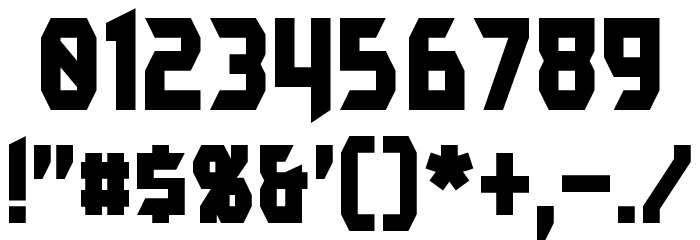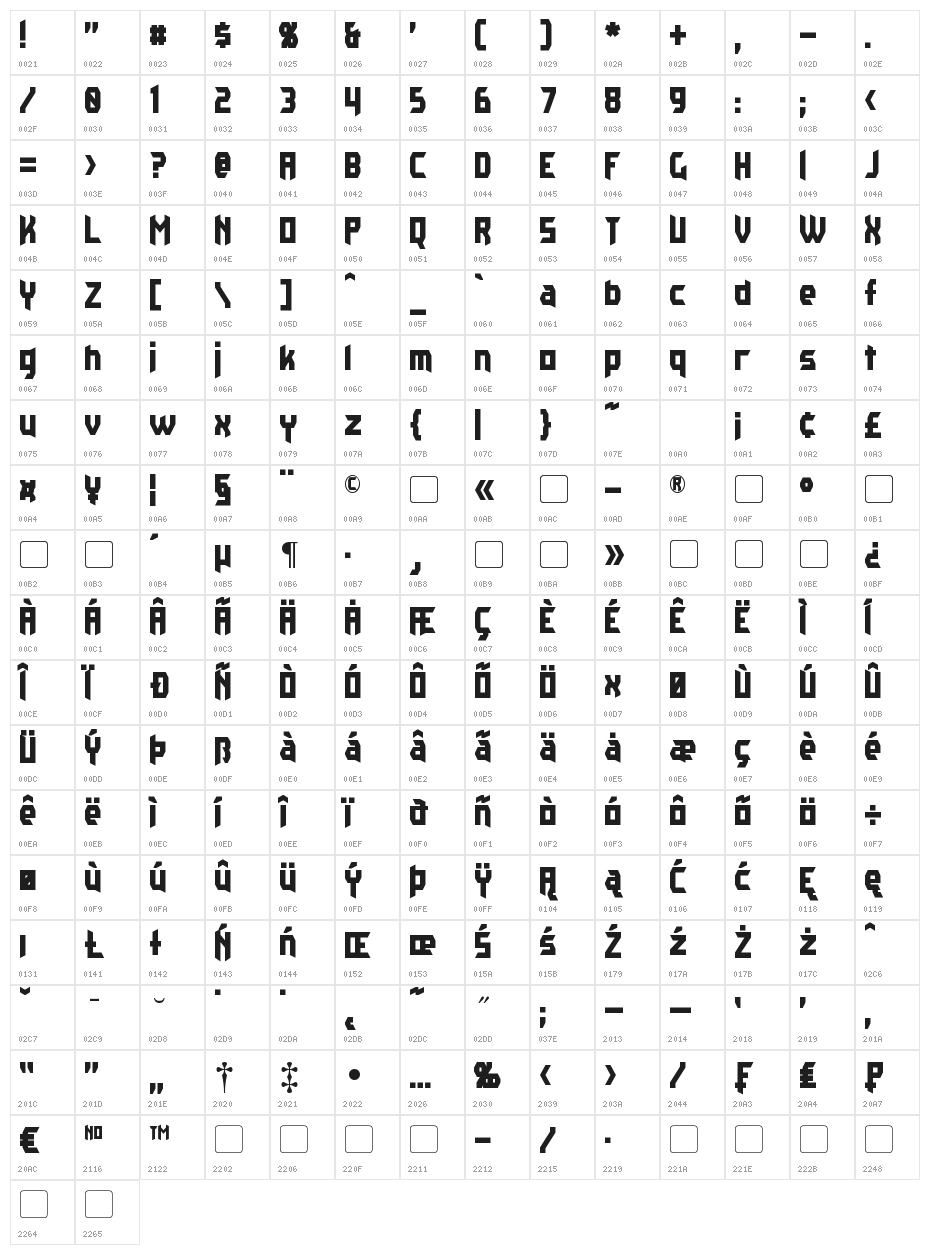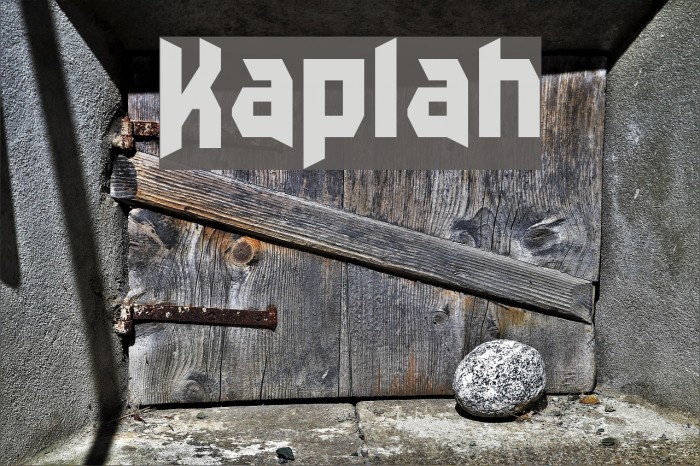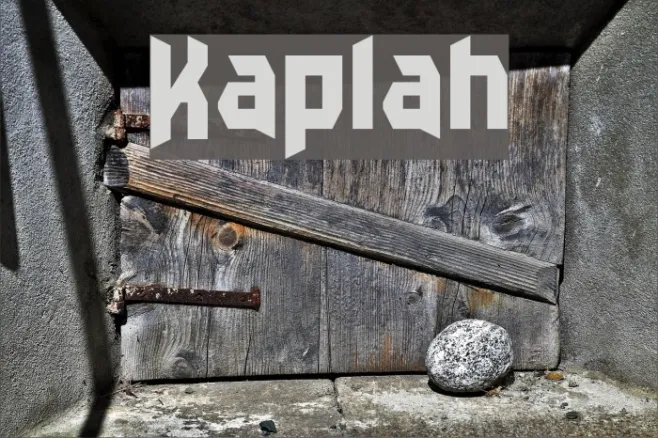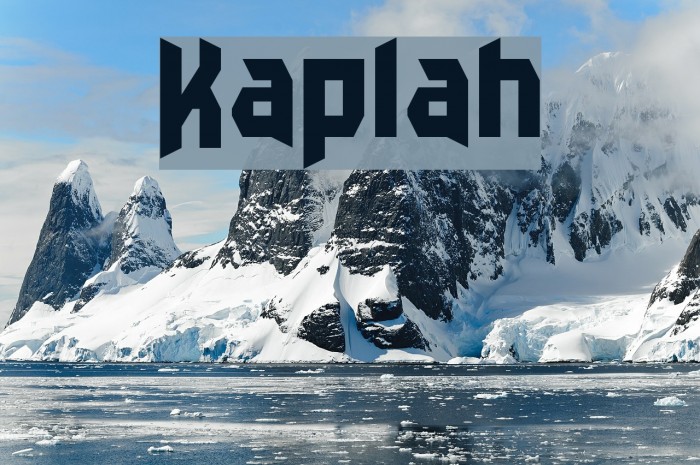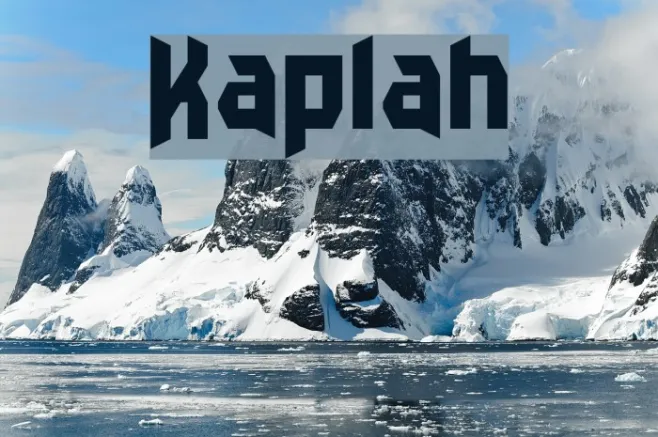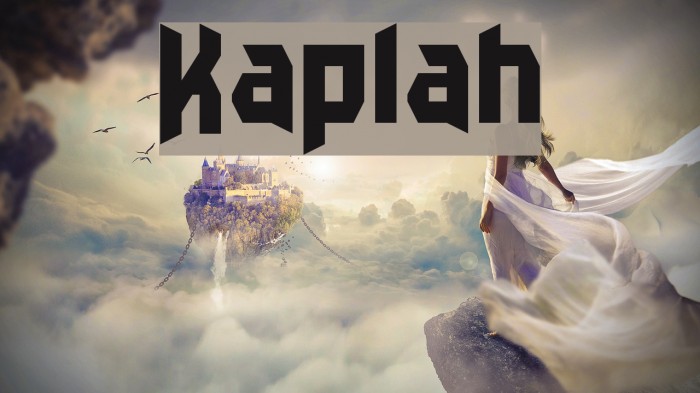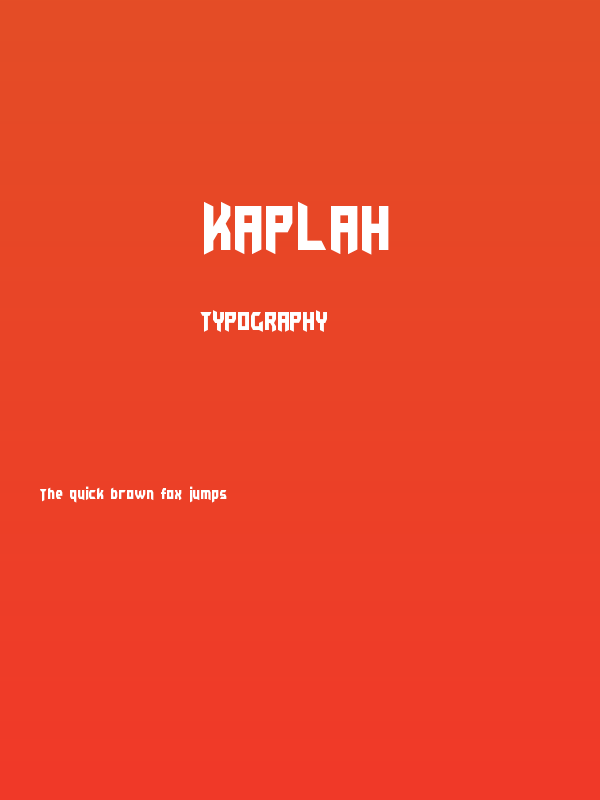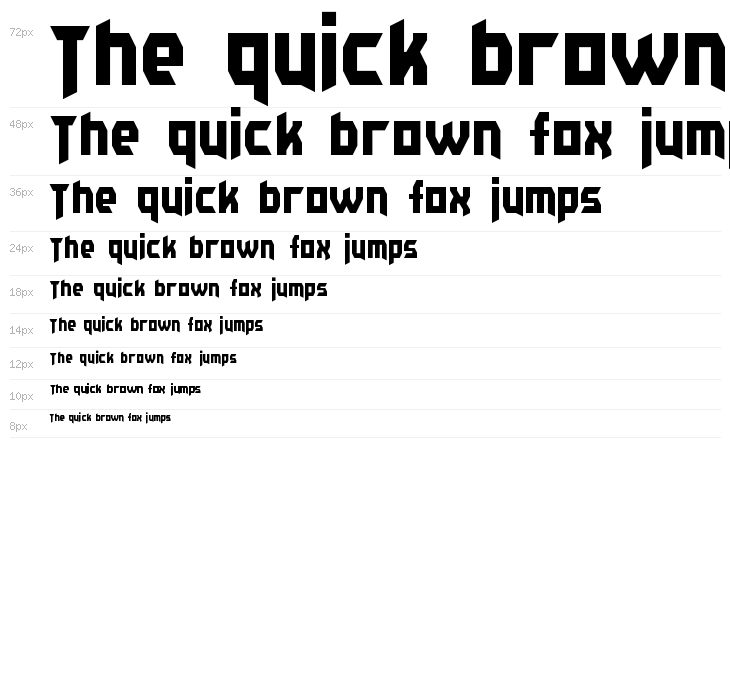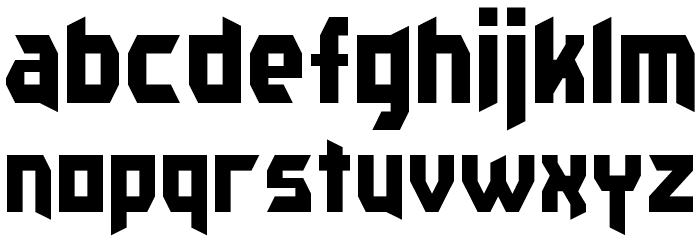
Kaplah Font
Kaplah Description
This font features a bold, geometric design with sharp angles and a futuristic aesthetic. The characters are distinctly angular, creating a sense of movement and energy. Each letter is crafted with precision, giving the font a unique and modern look. The uppercase and lowercase letters maintain a consistent style, while the numbers and special characters complement the overall design. This font is ideal for projects that require a strong visual impact and a contemporary feel.
| Proposed Projects | Ideal for sci-fi themed designs, video game titles, posters, and branding that requires a modern edge. |